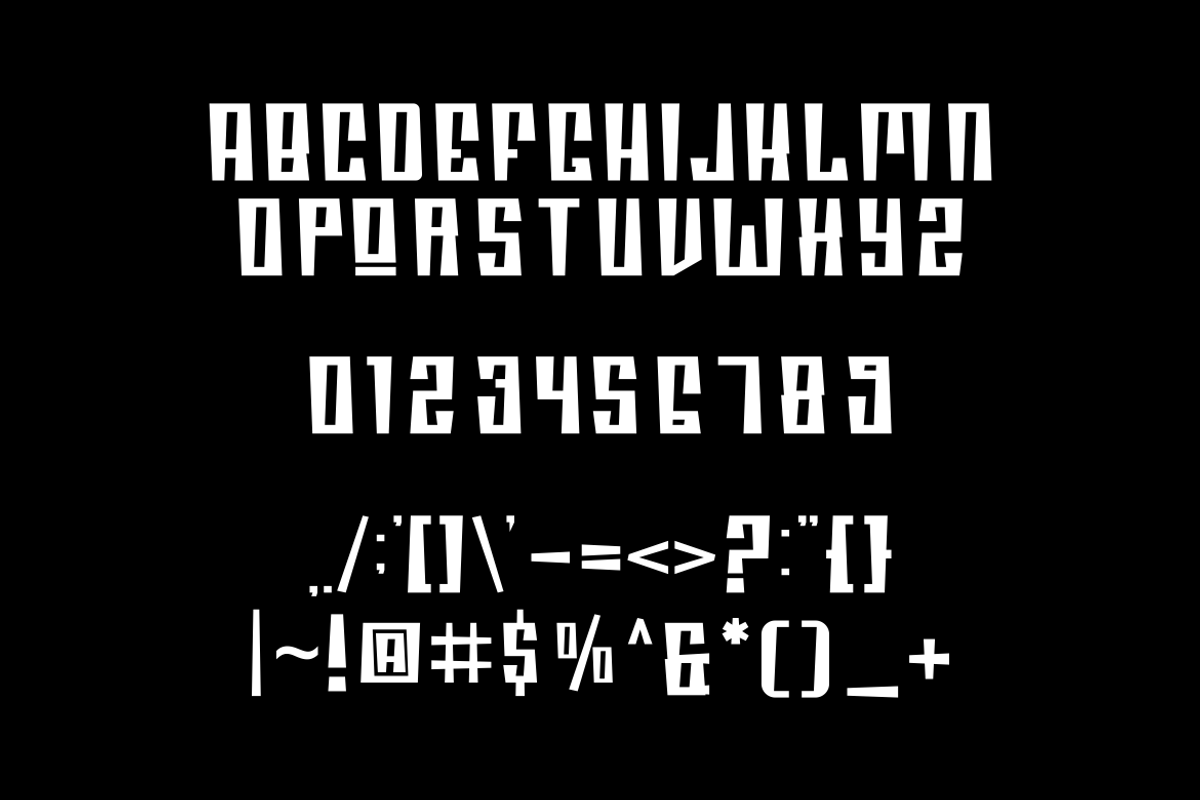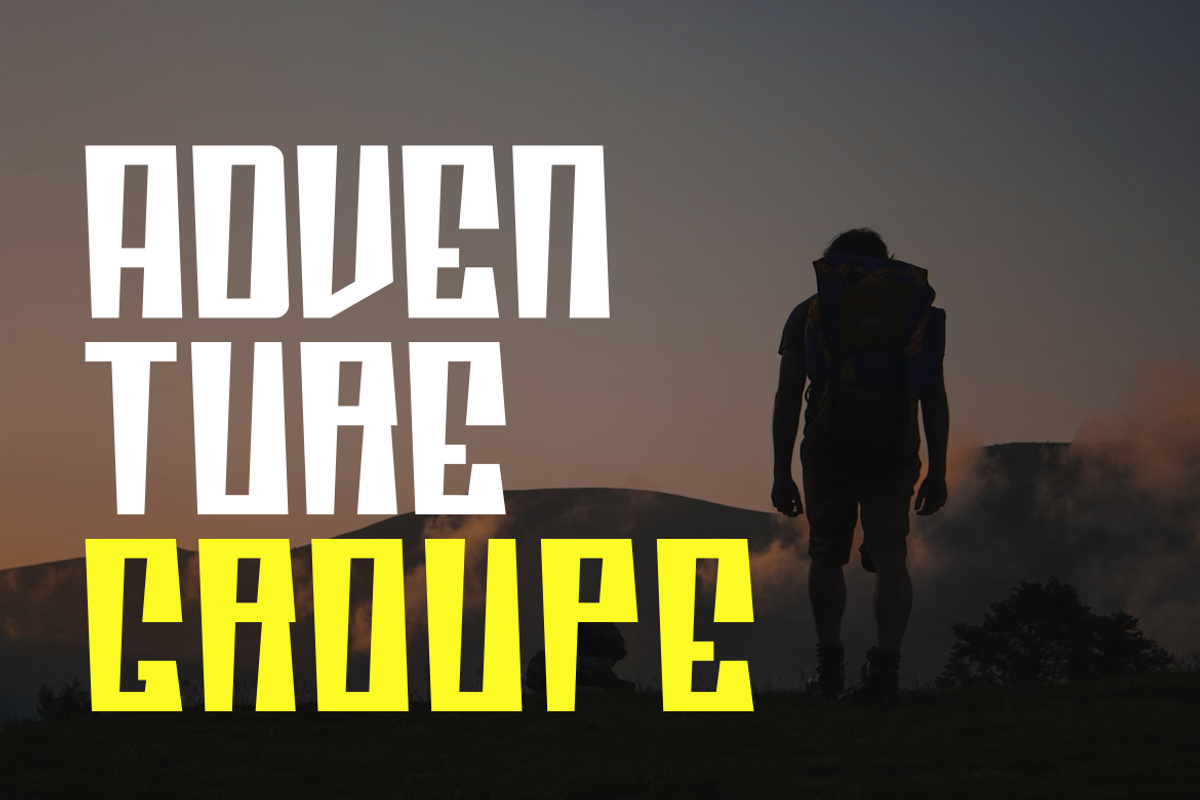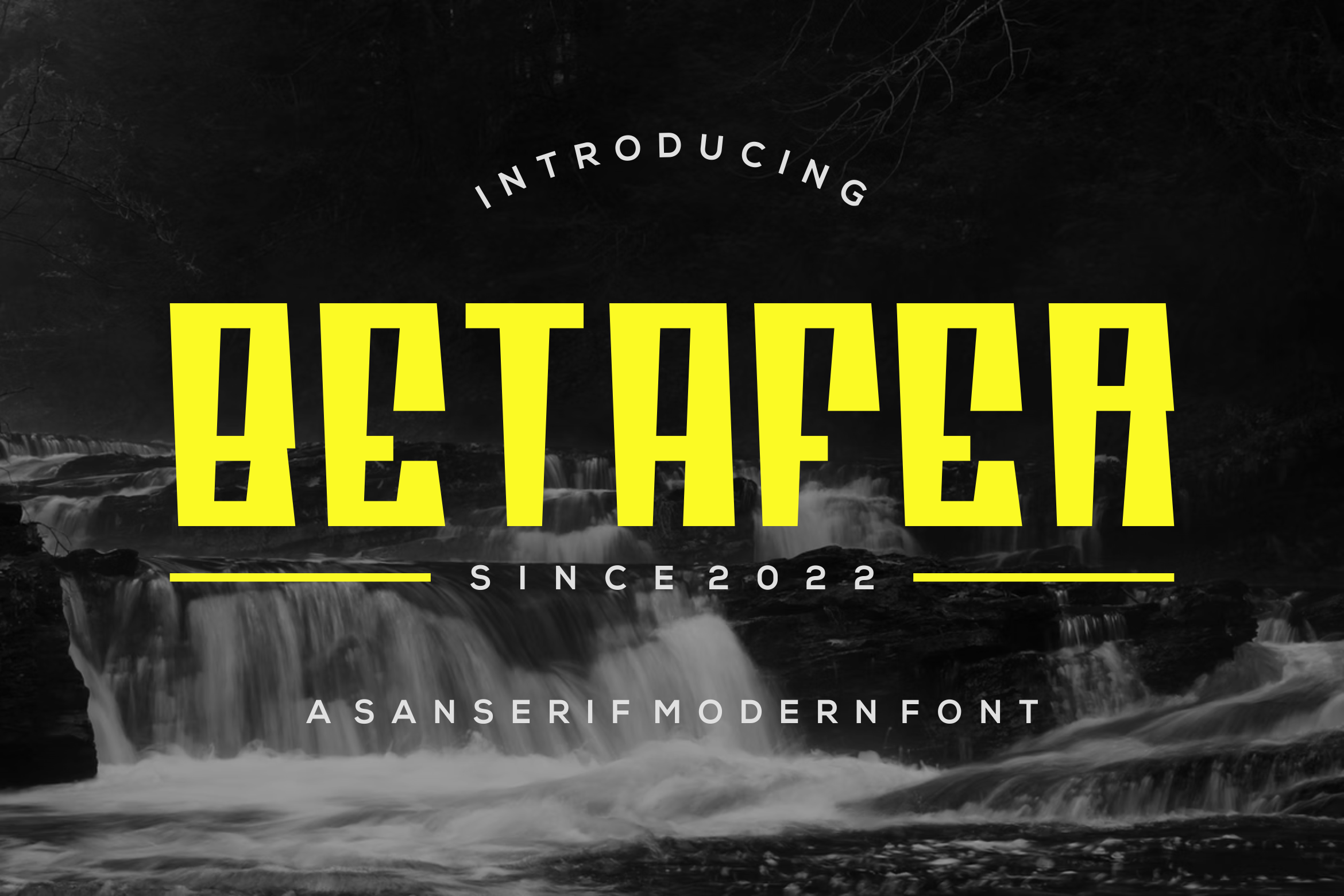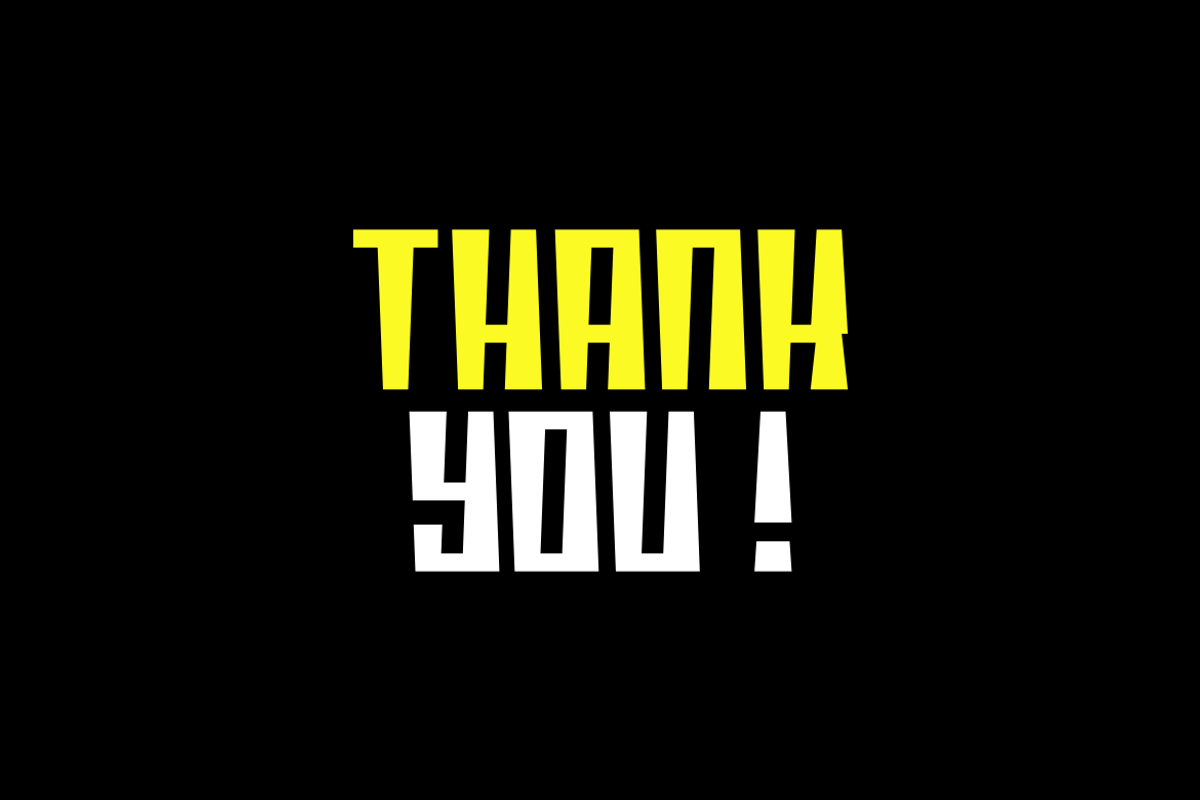
Betafer Font
Introducing our new product Betafer Font - Modern Font
Betafer Font - Modern Font is a bold and authentic display font. The font is suitable for any branding project like logo, esport, and many more. outstanding in a wide range of contexts.